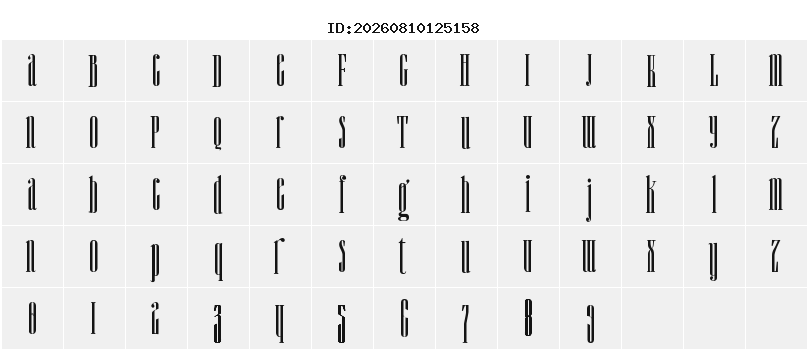
Quinn Preview
• Font Name: Quinn
• Full Font Name: Quinn
About Quinn.ttf
Quinn.ttf is a modern, elegant sans-serif font designed for ultimate readability and visual harmony. Perfect for branding, headlines, web design, and print materials.